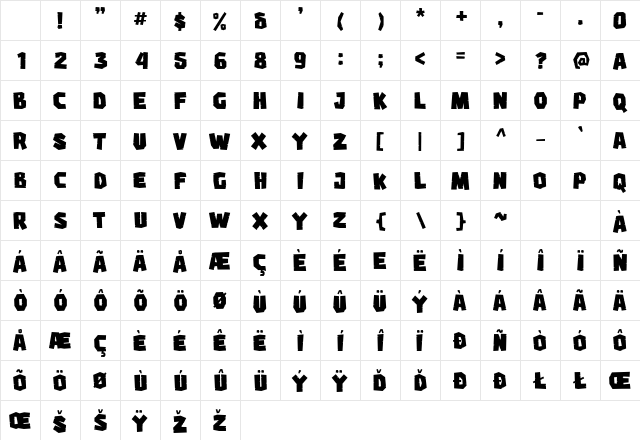
Complete River Adventurer Regular glyph index. Displaying only characters natively supported by River Adventurer Regular font.
River Adventurer is a composed and adaptable typeface that performs quietly and consistently across a wide range of design contexts.
Who designed the River Adventurer Regular font?
This font was published by TKK Studio. Check the technical specs section for copyright and designer details.